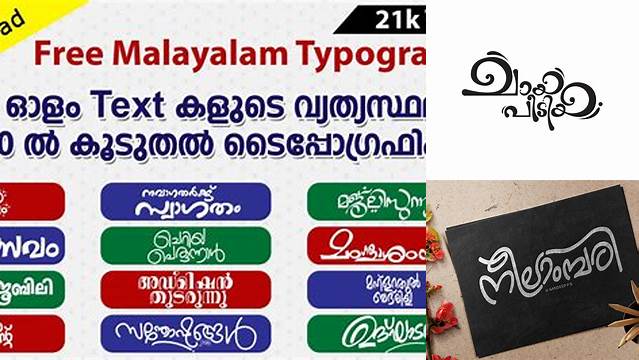
Malayalam Calligraphy Font Generator: Free & Unique Fonts
Are you looking to elevate your design game with the beautiful art of Malayalam calligraphy? Or maybe you're just curious about exploring the diverse world of Malayalam fonts? Well, you've come to the right place, guys! In this article, we'll dive deep into the realm of Malayalam calligraphy fonts and how you can generate them for free. We'll explore various tools and resources available online, discuss the nuances of Malayalam calligraphy, and even touch upon the rich history behind this elegant script. So, buckle up and get ready to unleash your creativity with stunning Malayalam calligraphy!
What is Malayalam Calligraphy?
Let's start with the basics. What exactly is Malayalam calligraphy? Simply put, it's the art of beautiful handwriting using the Malayalam script. But it's so much more than just neat penmanship! Malayalam calligraphy is an art form that blends tradition, aesthetics, and cultural expression. The Malayalam script itself is derived from the ancient Brahmi script and has evolved over centuries, carrying with it a rich history and cultural significance. When applied to calligraphy, the script's inherent curves, loops, and unique character shapes are accentuated, creating visually striking compositions. Unlike Latin script calligraphy, which often focuses on varying stroke thicknesses, Malayalam calligraphy emphasizes the flow and connection between letters, creating a sense of rhythm and harmony. Think of it as a dance of ink and paper, where each stroke tells a story. The beauty of Malayalam calligraphy lies in its ability to convey not just words, but also emotions and cultural identity. It's a powerful tool for visual communication, used in everything from traditional art forms like Kathakali and Mohiniyattam to modern graphic design and branding. Mastering Malayalam calligraphy requires not only technical skill but also an understanding of the script's history, cultural context, and artistic principles. It's a journey of continuous learning and exploration, where practice and experimentation are key to unlocking your creative potential. Whether you're a seasoned designer or just starting out, exploring Malayalam calligraphy can open up a whole new world of artistic possibilities. So, let's dive deeper into the tools and techniques you can use to generate your own stunning Malayalam calligraphy fonts for free!
Why Use Malayalam Calligraphy Fonts?
Okay, so we know what Malayalam calligraphy is, but why should you actually use it? What makes it so special? Well, there are a ton of reasons why incorporating Malayalam calligraphy fonts into your projects can be a game-changer. First and foremost, it adds a touch of authenticity and cultural richness to your designs. If you're creating something that's meant to resonate with a Malayalam-speaking audience, using calligraphy fonts instantly establishes a connection and conveys a sense of respect for the language and culture. Imagine designing a poster for a local festival or a website for a traditional arts organization – Malayalam calligraphy fonts can make all the difference in creating an impactful and culturally relevant design. Beyond cultural significance, Malayalam calligraphy fonts are simply visually stunning. The intricate letterforms and graceful curves add an element of elegance and sophistication that's hard to achieve with standard fonts. They can instantly elevate your designs, making them more eye-catching and memorable. Think about using calligraphy fonts for headings, logos, or even short paragraphs – they can add a touch of artistry and personality to your work. Moreover, using Malayalam calligraphy fonts can help you stand out from the crowd. In a world saturated with generic sans-serif and serif fonts, calligraphy offers a unique and refreshing visual aesthetic. It allows you to express your creativity and create designs that are truly one-of-a-kind. Whether you're designing wedding invitations, branding materials, or social media graphics, calligraphy fonts can help you make a lasting impression. And let's not forget the emotional impact of calligraphy. The handcrafted nature of these fonts evokes a sense of warmth, tradition, and artistry. They can add a personal touch to your designs, making them feel more human and engaging. Imagine receiving a handwritten letter – the beauty of the handwriting adds an extra layer of meaning and emotion to the message. Malayalam calligraphy fonts can have a similar effect, adding a touch of personality and authenticity to your designs. So, whether you're looking to connect with a specific audience, add a touch of elegance, stand out from the crowd, or simply express your creativity, Malayalam calligraphy fonts are a fantastic tool to have in your design arsenal. Now, let's explore how you can generate these beautiful fonts for free!
Free Malayalam Calligraphy Font Generators: A Deep Dive
Now, let's get to the good stuff! You're probably wondering how you can actually create these amazing Malayalam calligraphy fonts without breaking the bank. The good news is, there are several free Malayalam calligraphy font generators and resources available online that can help you unleash your inner calligrapher. We'll explore some of the most popular options and discuss their features, pros, and cons. One of the most common approaches is using online calligraphy generators. These tools typically allow you to input text in Malayalam, choose from a variety of calligraphy styles, and then generate an image or a downloadable font file. Some generators offer basic customization options, such as font size, color, and background, while others provide more advanced features like kerning and ligature adjustments. While these online generators are a great starting point, it's important to remember that the quality of the generated fonts can vary significantly. Some generators produce fonts that look a bit generic or lack the finesse of professionally designed calligraphy. However, they can be a valuable resource for experimenting with different styles and getting a feel for Malayalam calligraphy. Another popular option is using font editing software. Programs like FontForge (which is open-source and free) allow you to create your own fonts from scratch or modify existing ones. This approach requires a bit more technical expertise, as you'll need to understand the basics of font design and typography. However, it offers the greatest level of control and customization. You can meticulously craft each letterform, adjust the spacing and kerning, and create a font that perfectly matches your vision. If you're serious about creating high-quality Malayalam calligraphy fonts, learning to use font editing software is definitely worth the investment. In addition to online generators and font editing software, there are also several free Malayalam font libraries available online. These libraries offer a wide range of pre-designed fonts, including some beautiful calligraphy styles. Websites like Google Fonts and the SMC (Swathanthra Malayalam Computing) offer a variety of free and open-source Malayalam fonts that you can download and use in your projects. When using free font libraries, it's important to pay attention to the licensing terms. Some fonts may be free for personal use but require a commercial license for business projects. Always check the license agreement before using a font to ensure that you're complying with the terms. We'll delve deeper into specific tools and resources in the following sections, providing you with a comprehensive guide to generating free Malayalam calligraphy fonts. So, stay tuned!
Popular Tools and Resources
Alright, let's get down to specifics! We've talked about the general approaches to generating free Malayalam calligraphy fonts, but now let's explore some popular tools and resources that you can actually use. This section will provide you with a curated list of options, ranging from online generators to font editing software and font libraries. We'll discuss the pros and cons of each, helping you choose the best tools for your needs and skill level. First up, let's talk about online Malayalam calligraphy generators. While the quality can vary, some generators offer surprisingly good results and are a great option for quick experimentation and generating initial drafts. One popular option is the